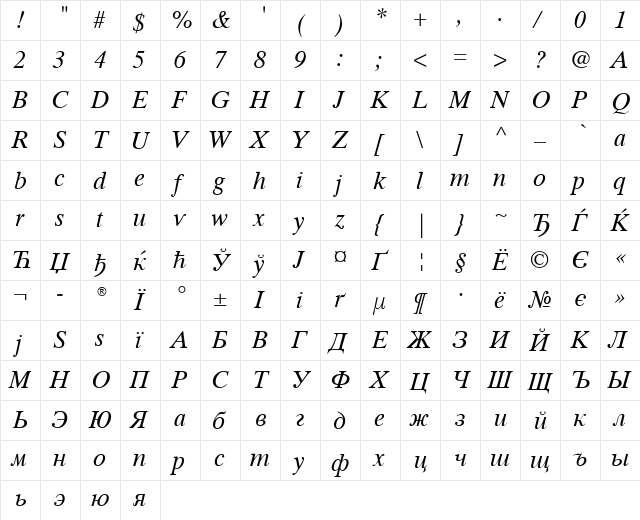
Times Ten Cyr Upright Italic Font Preview
Times Ten Cyr Upright Italic
Design Context for Times Ten Cyr Upright Typeface
Times Ten Cyr Upright offers clean, dependable letterforms without strong stylistic allegiance, making it a practical choice for designers who need flexibility. The slanted form adds forward momentum and visual energy.